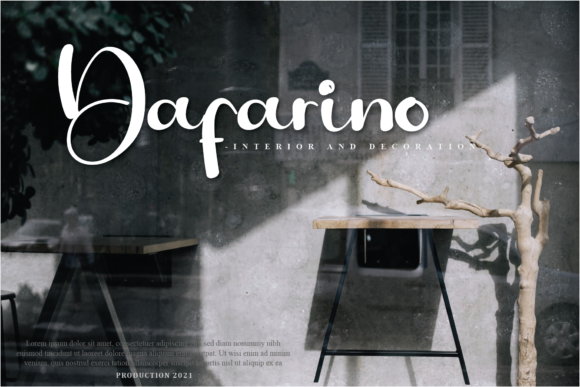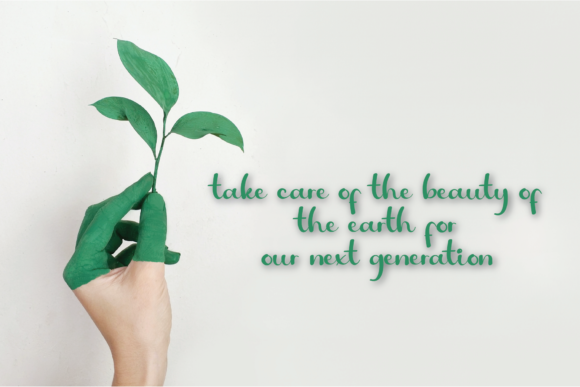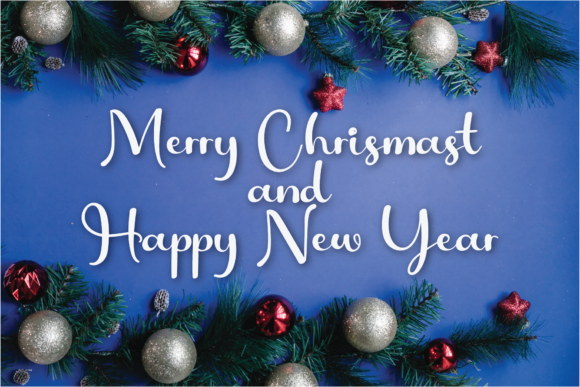
Introduction to Notes December Font
As a designer, have you ever found yourself stuck in a creative rut, searching for that perfect font to elevate your project from ordinary to extraordinary? I know I have. It was on one such day, brainstorming ideas for a client’s wedding invitation, that I stumbled upon the enchanting Notes December Font.
This flowing and elegant script font is a true gem, perfect for adding a touch of sophistication and romance to your design projects. With its ravishing style, the Notes December Font is an absolute must-have for any designer looking to create stunning visuals that leave a lasting impression.
Not only is the Notes December Font a valuable resource for designers, but it’s also available for free download, making it an accessible design resource for creatives of all levels. Whether you’re working on a high-quality commercial project or a personal creative endeavor, this versatile font is sure to bring your ideas to life with its transparent background and beautiful, flowing lines.
Key Features of Notes December Font
- Unique, elegant design suitable for creative projects, such as invitations, cards, and other paper crafts.
- Perfect for adding a touch of sophistication and whimsy to your design projects, including scrapbooking, journaling, and more.
Honest Review: Notes December Font
I recently stumbled upon the Notes December Font and was excited to give it a try. As a designer, I’m always on the lookout for high-quality fonts that can elevate my creative projects. The Notes December Font did not disappoint.
One of the standout features of this font is its unique aesthetic. The Notes December Font has a quirky, handwritten feel that’s perfect for adding a touch of personality to your designs. It’s also great for use in titles, headings, and other large text elements.
Here are some of the things that work well about the Notes December Font:
- ✨ Unique and quirky aesthetic
- ✨ Great for use in titles, headings, and other large text elements
While the Notes December Font is a great addition to any designer’s toolkit, there are a few limitations to be aware of:
- ⚠️ May not be suitable for use in body text due to its quirky, handwritten feel
- ⚠️ Limited compatibility with certain font styles and combinations
Overall, I’m impressed with the Notes December Font and would definitely recommend it to designers looking for a unique and high-quality font for their creative projects.
Using Notes December Font in Creative Projects
The Notes December Font is ideal for use in creative projects, such as designing greeting cards, invitations, or social media graphics. Its transparent background and elegant design make it a versatile choice for a variety of applications.
Tips for Getting the Most Out of Notes December Font
To get the most out of the Notes December Font, experiment with different font sizes, colors, and styles to create a unique and eye-catching design. You can also pair the font with other design elements, such as graphics and images, to add depth and interest to your project.
Common Use Cases for Notes December Font
The Notes December Font is commonly used for designing holiday-themed projects, such as Christmas cards, gift tags, and social media graphics. Its elegant design and transparent background make it a popular choice for creating beautiful and professional-looking designs.